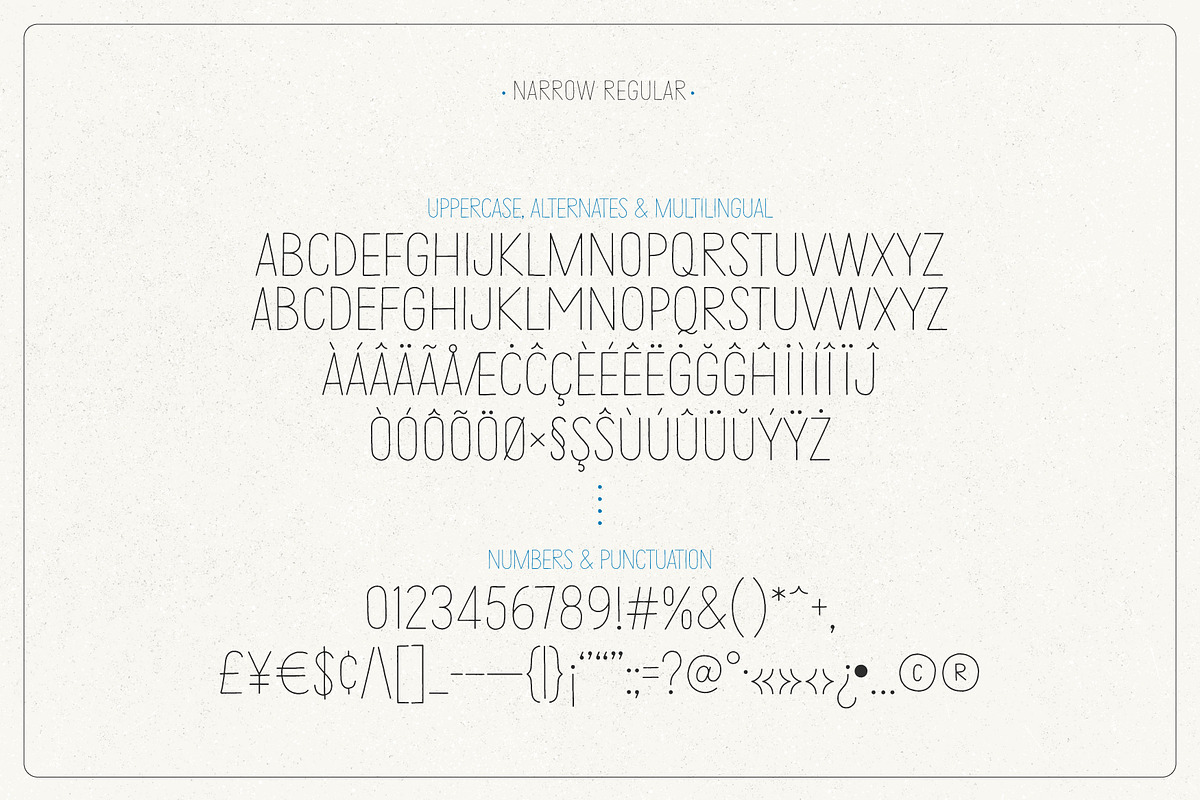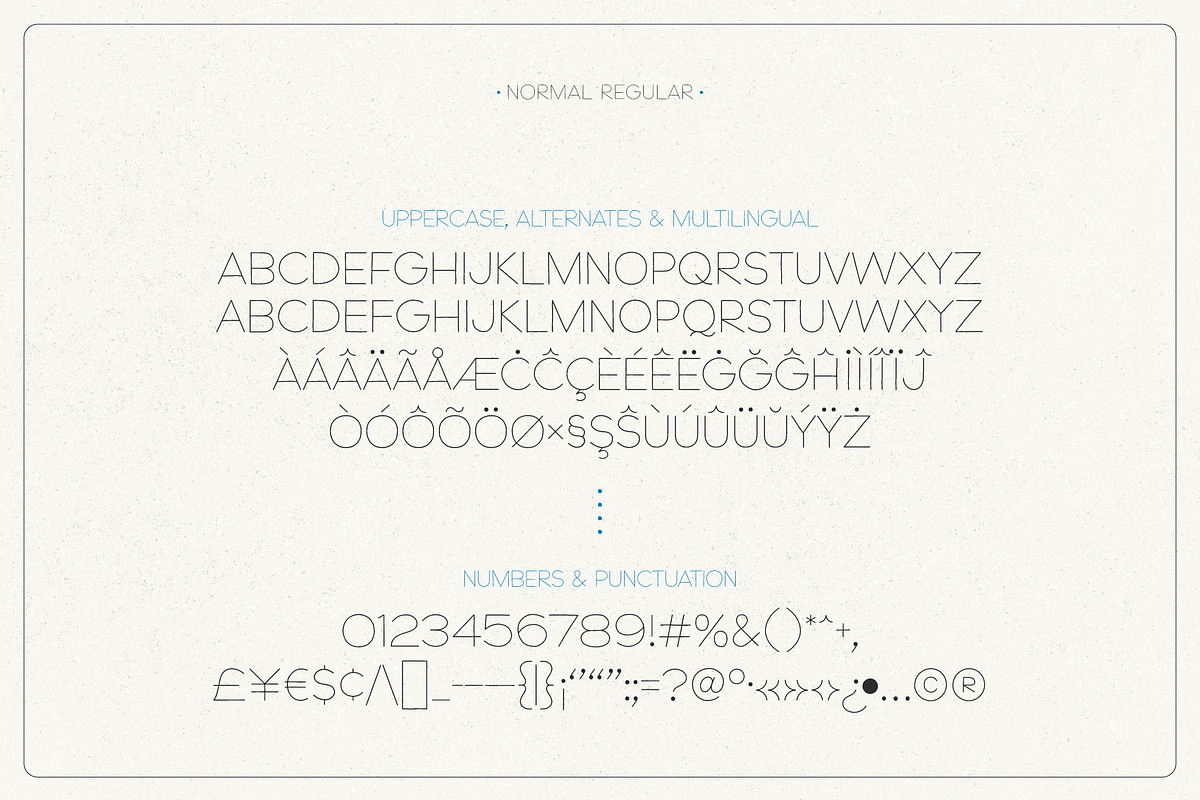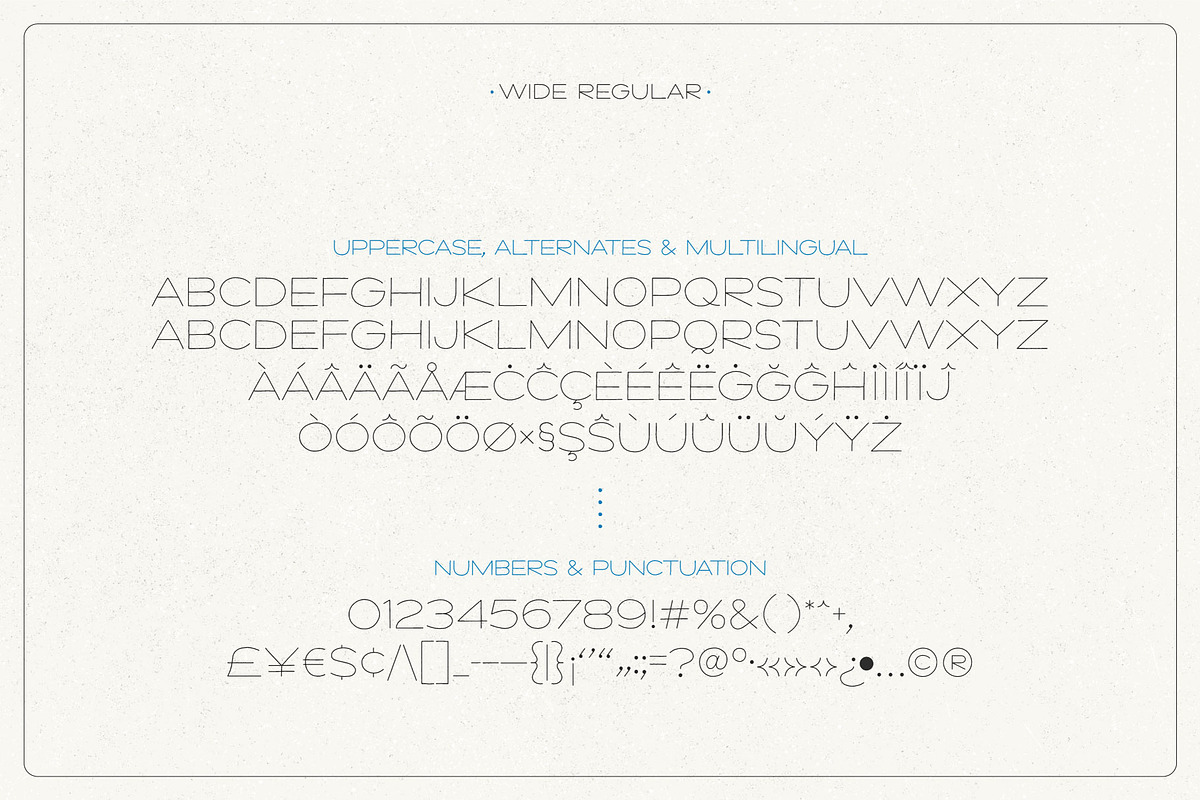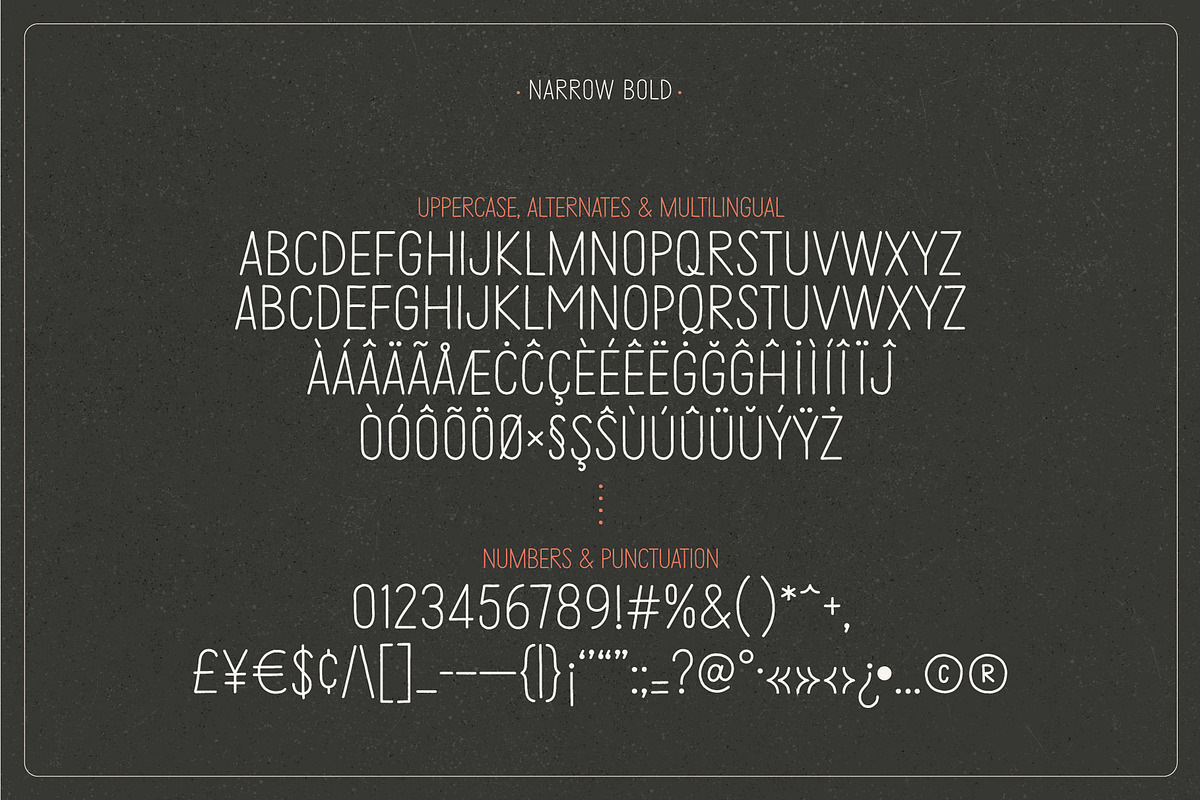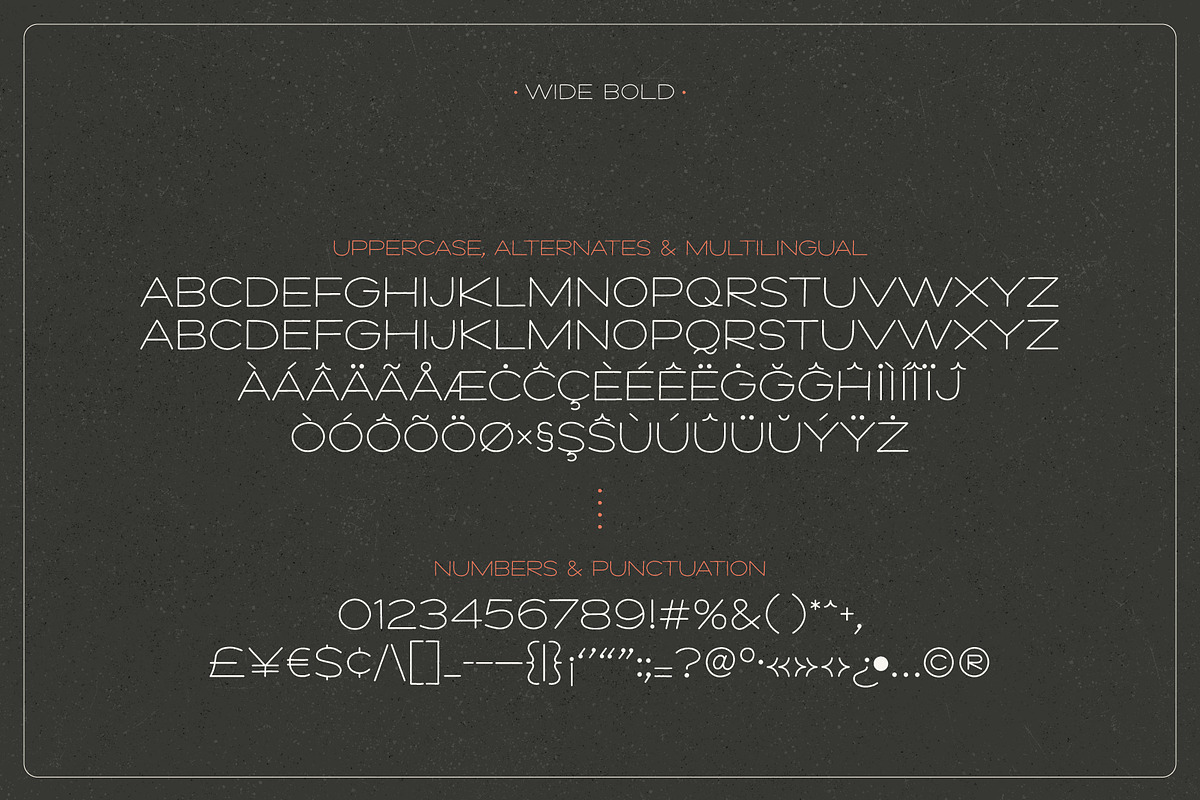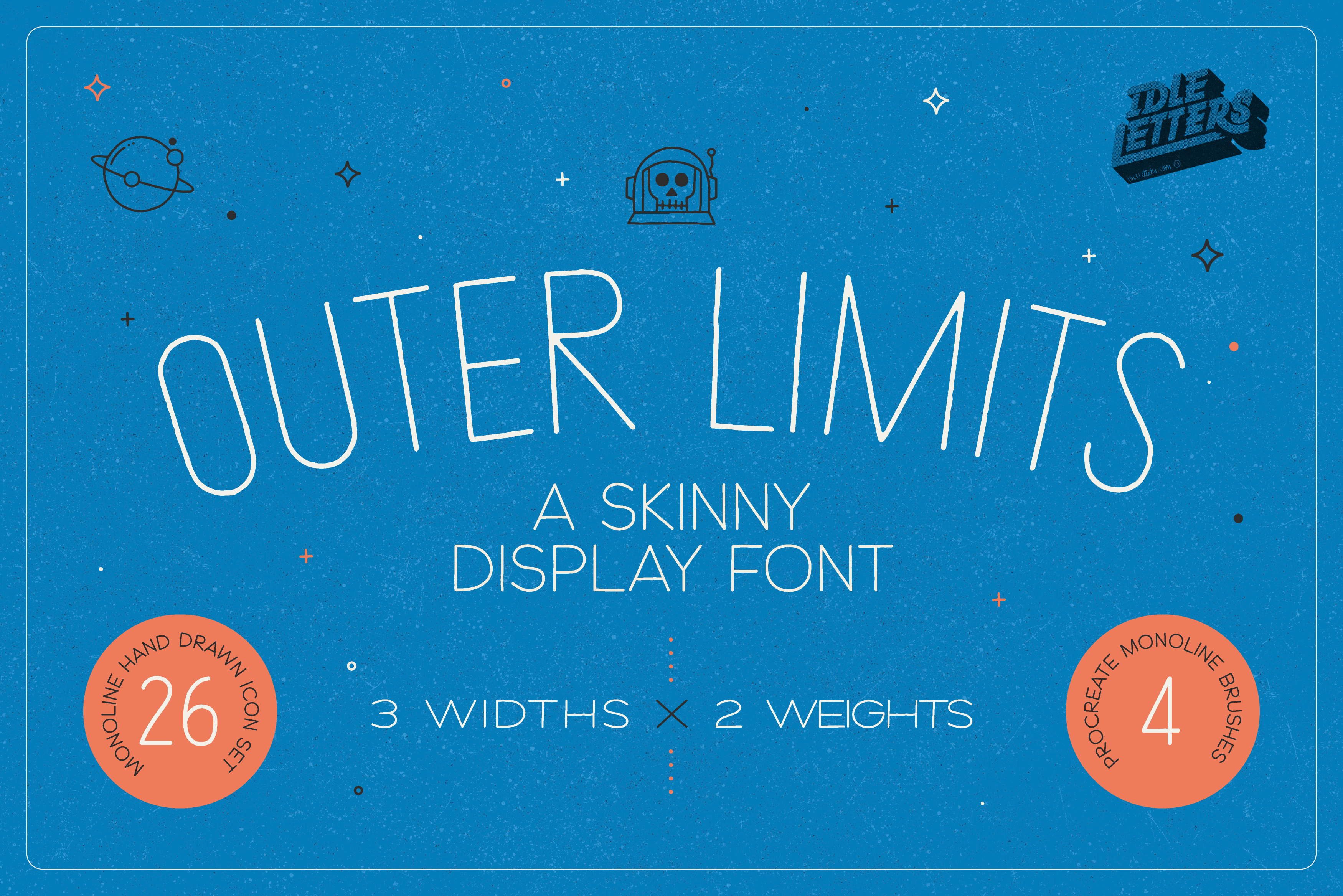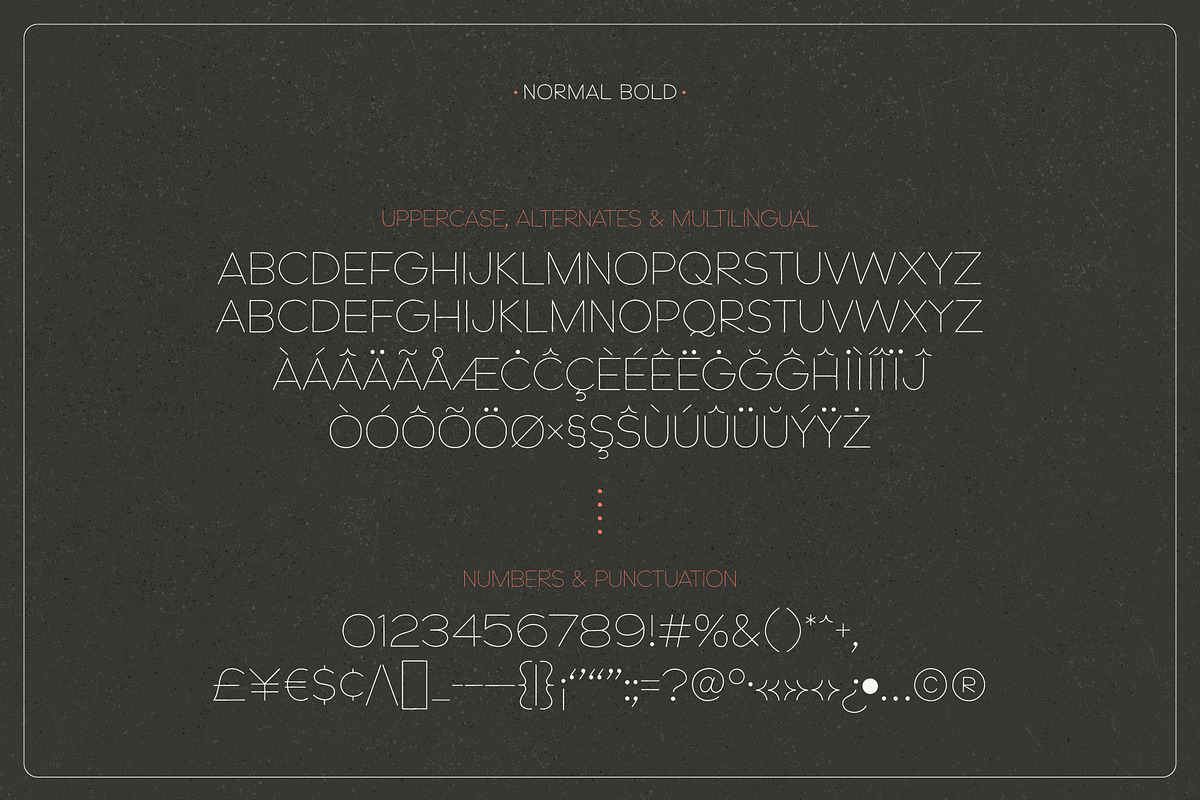
Outer Limits - Skinny Display Font
Outer Limits is a skinny, slightly wonky display font that will add a hand drawn charm to your work
There are 3 widths, each in 2 weights, regular and bold. It is an all caps font, with alternatives for each letter to avoid any repetition. It is perfect for a whole range of things, such as promotional material and handwritten quotes, to product packaging, merchandise and branding projects. It may be skinny but it packs a punch, especially when used at larger sizes.
- Narrow: Uppercase letters, alternates, numbers, extended punctuation
- Normal: Uppercase letters, alternates, numbers, extended punctuation
- Wide: Uppercase letters, alternates, numbers, extended punctuation
The Icons: Alongside the font there is also a galactic themed set of 26 icons, these are supplied as an Opentype font, all the icons can be accessed via the glyphs panel as mentioned above. They are also supplied as a set in an Illustrator file.
The Brushes: A set of 4 simple, monoline procreate brushes are also included. These brushes are the ones used to create the font itself in Procreate on the iPad Pro. Hopefully this gives you the chance to build on the style and create your own graphics to compliment the font.